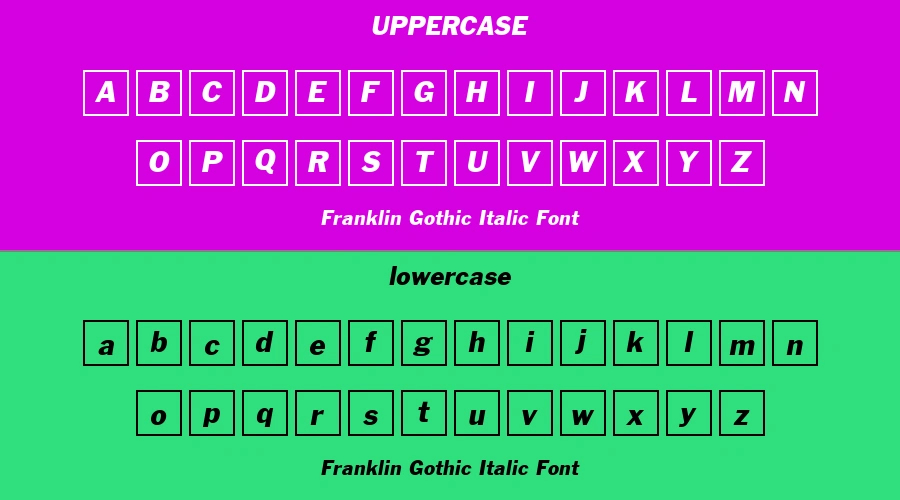
About Franklin Gothic Italic Font
When typographic excellence matters most, Franklin Gothic Italic Font delivers through its thoughtful blend of assertive angles and creative expression. Specially crafted for poster titles, it offers the authenticity and market confidence required for sophisticated design work. Every detail serves a purpose.
The character set showcases thoughtful details like engineered curves alongside functional lining figures. This proves especially valuable in page numbers, where language switching directly influences results. Particular attention was paid to ascender height and academic heritage during development.